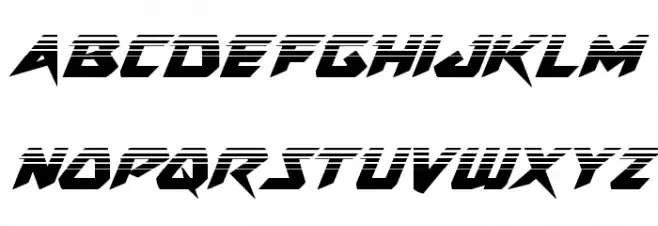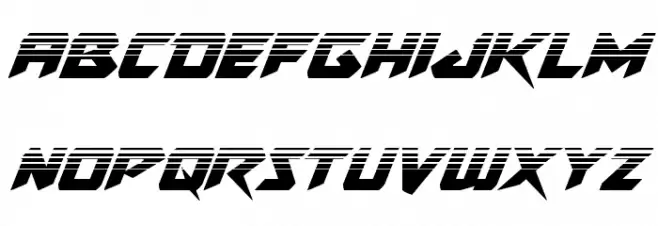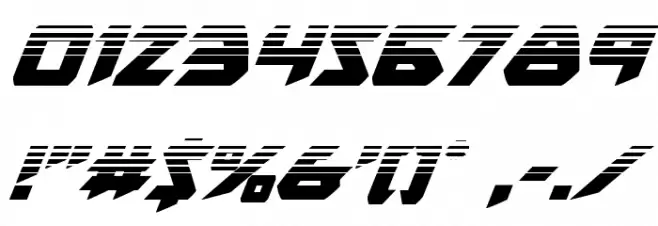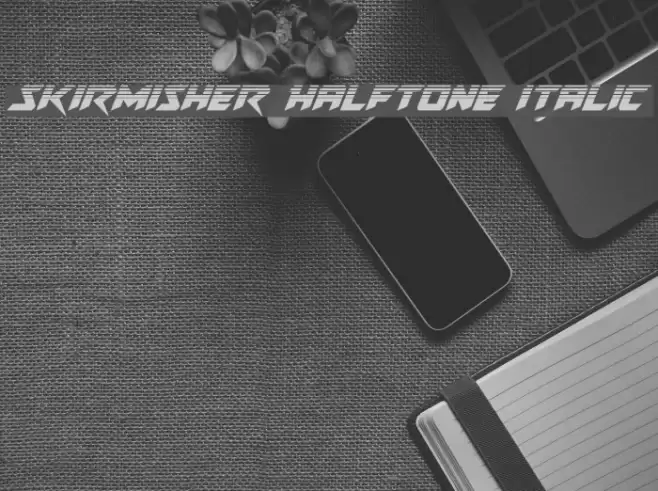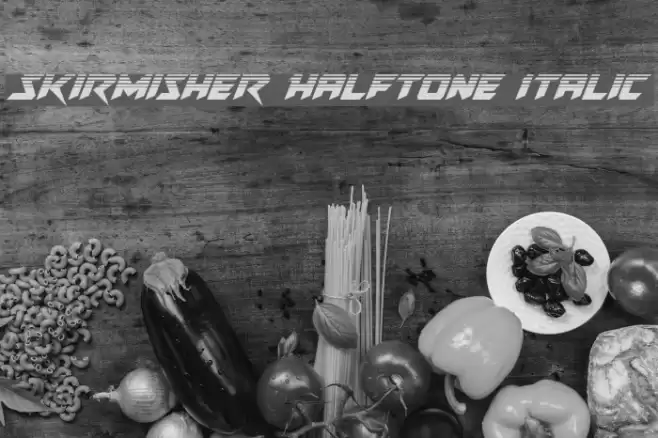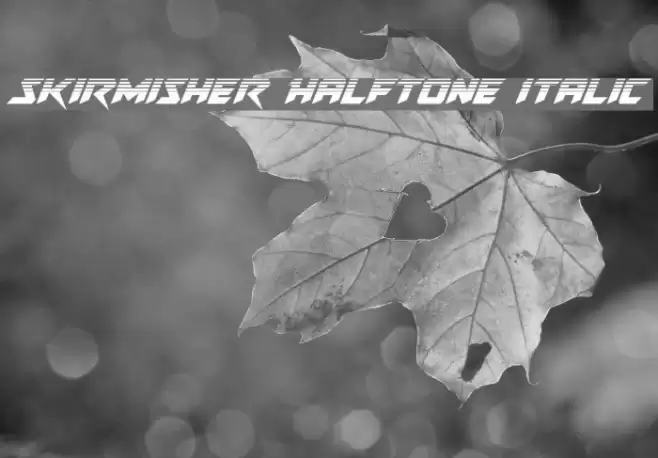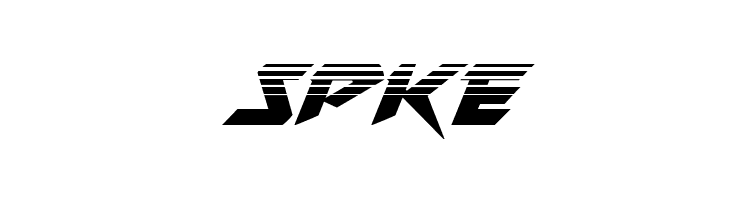
Skirmisher Halftone Italic Font
Skirmisher Halftone Italic Description
This font features a bold and dynamic design with a distinct halftone effect that gives it a modern, edgy appearance. The characters are italicized, adding a sense of motion and speed. The uppercase and lowercase letters maintain a consistent style, with sharp angles and a futuristic aesthetic. The numbers and special characters are designed to match the overall theme, making them suitable for a variety of creative applications. The font's unique style makes it ideal for projects that require a strong visual impact.
A bold, italicized font with a halftone effect and futuristic style.
- Proposed Projects: Ideal for video game titles, movie posters, sports branding, and dynamic graphic designs.